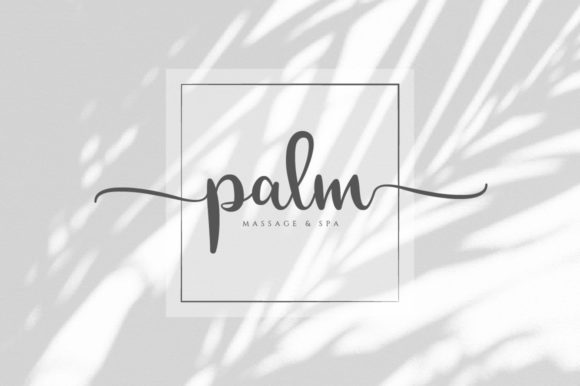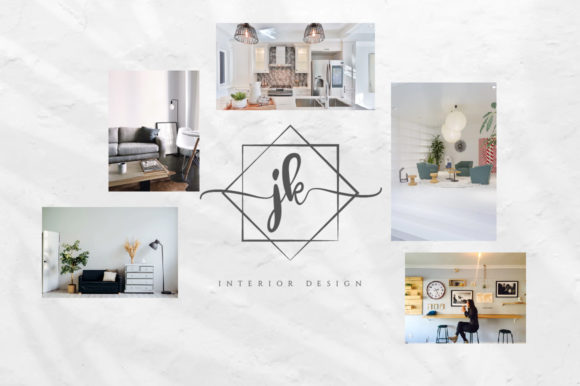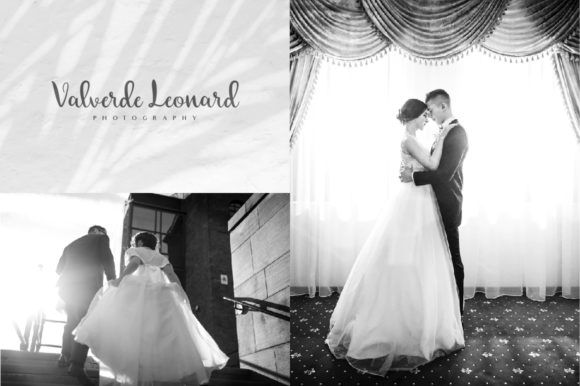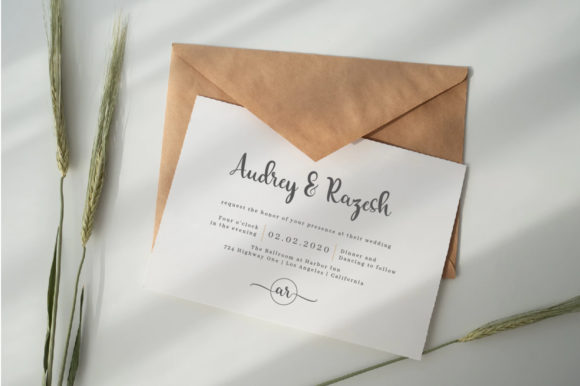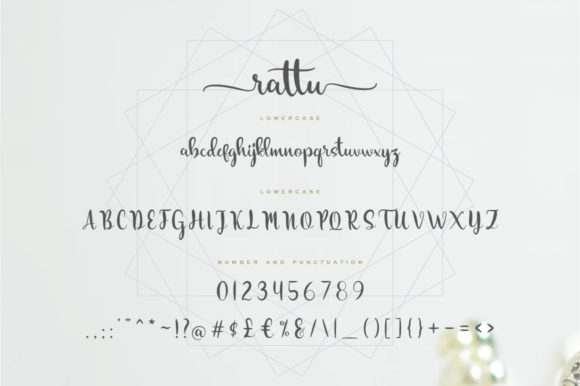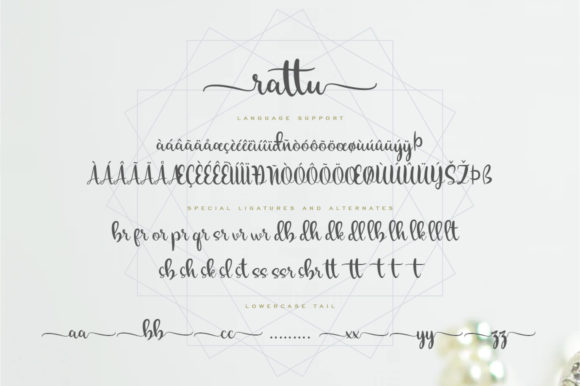
Introduction to Rattu Font
Rattu is a bold modern handwritten script, allowing you to create beautiful hand-made typography in an instant.
Key Features of Rattu Font